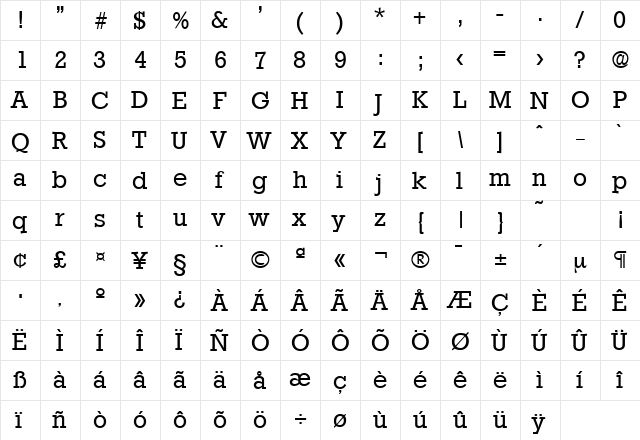
Stafford-Serial Regular
Design Context for Stafford-Serial Typeface
Stafford-Serial takes a measured approach to typography — its balanced proportions and neutral character make it a reliable workhorse for both digital and print work.